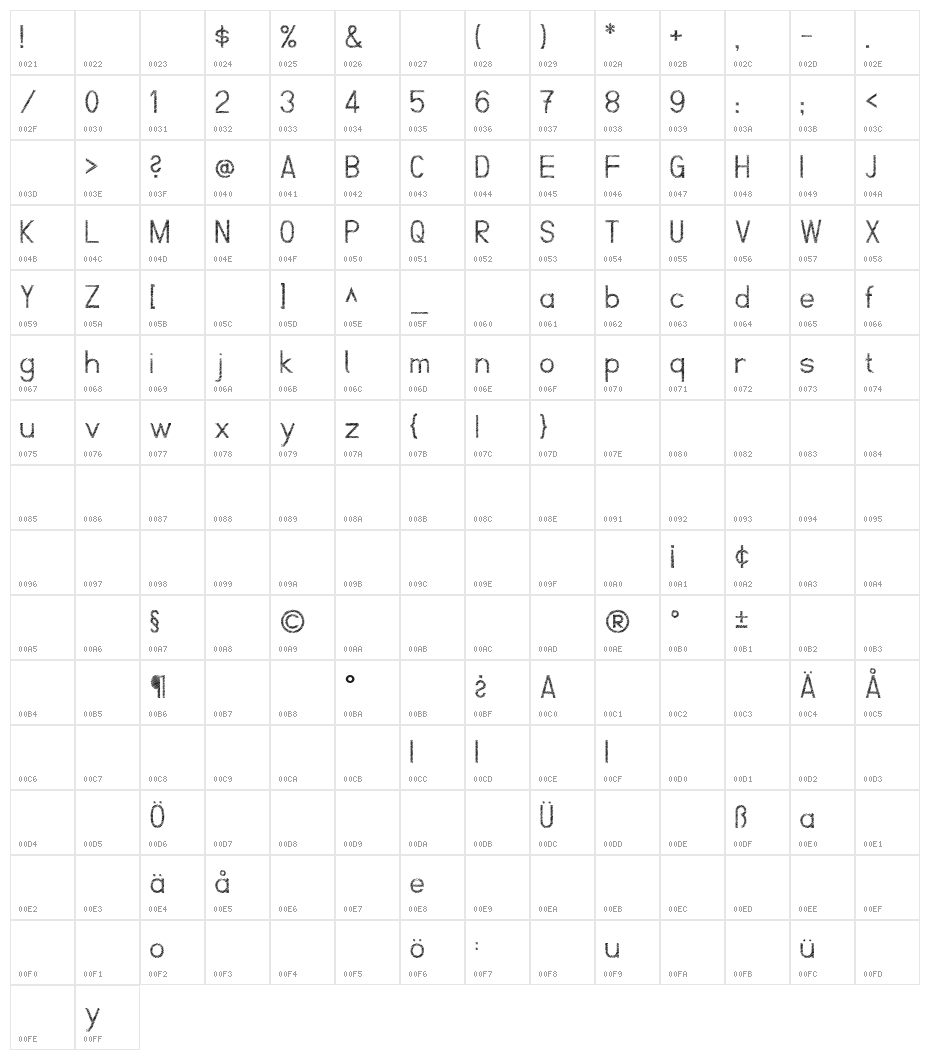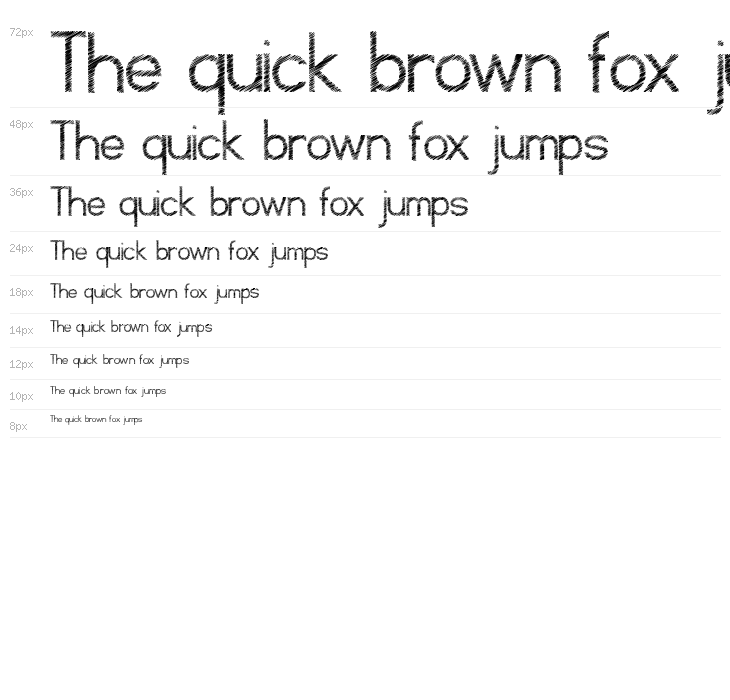
ScrFIBbLE Font
ScrFIBbLE Description
This font features a unique, textured appearance that resembles hand-drawn or sketched lines, giving it a dynamic and artistic feel. The characters are bold and slightly condensed, with a consistent stroke width that creates a uniform look across both uppercase and lowercase letters. The numerals and special characters maintain the same textured style, ensuring cohesion throughout. This font's distinctive design makes it stand out, ideal for creative projects that require a touch of personality and flair.
| Overall Style | Artistic, Hand-drawn |
| Proposed Projects | Ideal for artistic projects, posters, branding, and any design needing a creative, hand-crafted touch. |